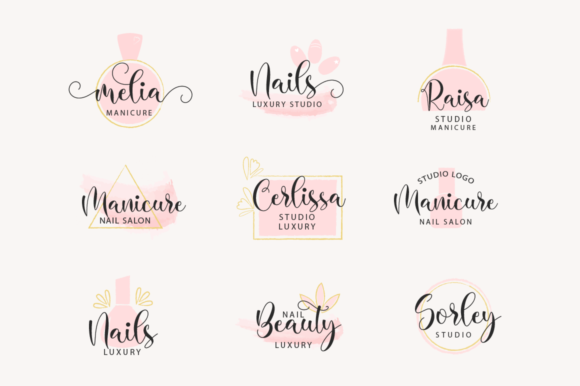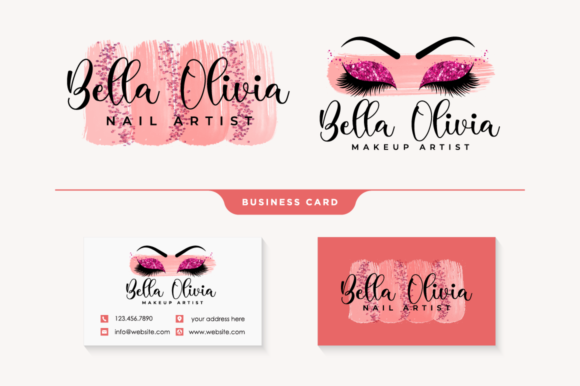
Butterfly Garden Font
db-ku.com - Script & Handwritten -- Butterfly Garden is a beautiful and elegant script font. Its modern and classy look makes it the perfect font for creating outstanding DIY projects! This font is PUA encoded which means you can access all of the glyphs and swashes with ease! It features a varying baseline, smooth lines, gorgeous glyphs and stunning alternates.